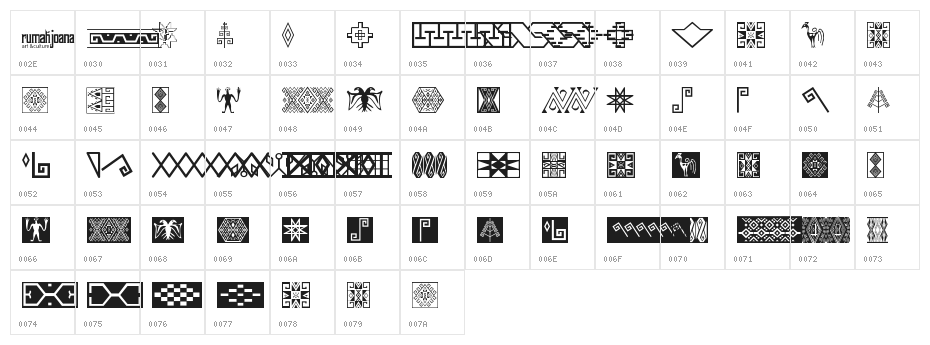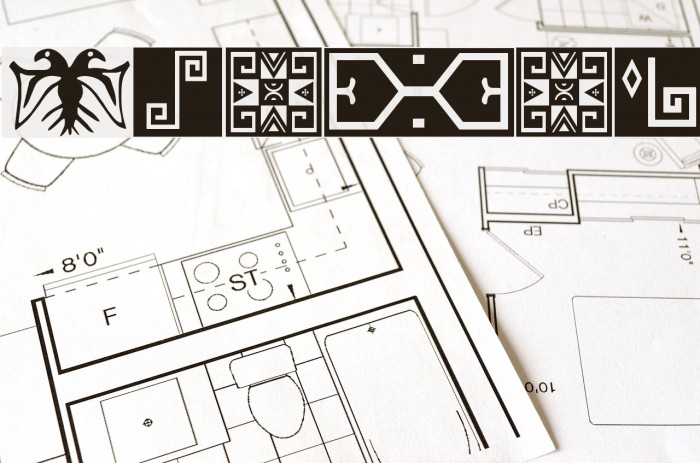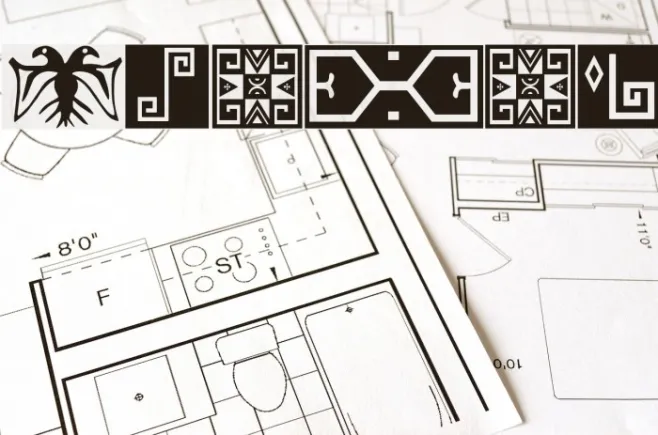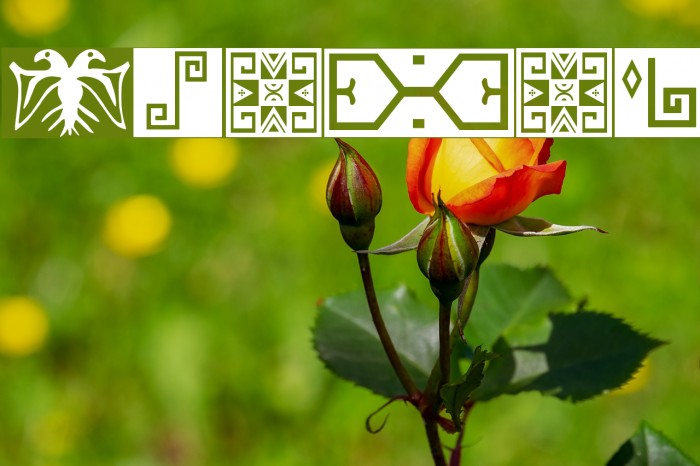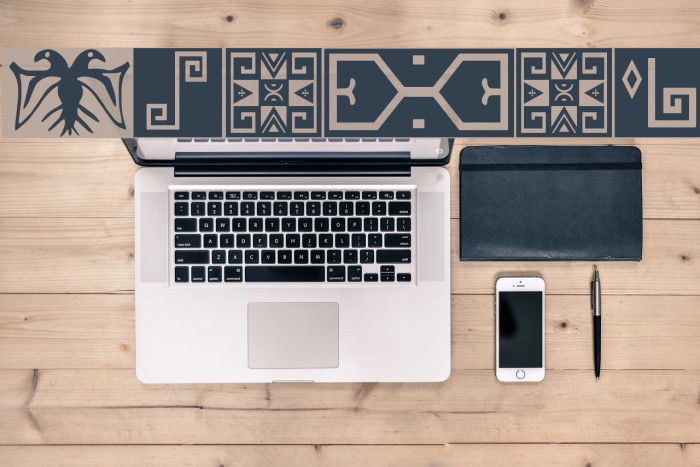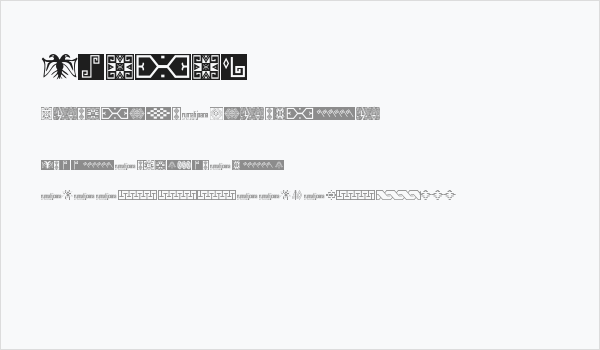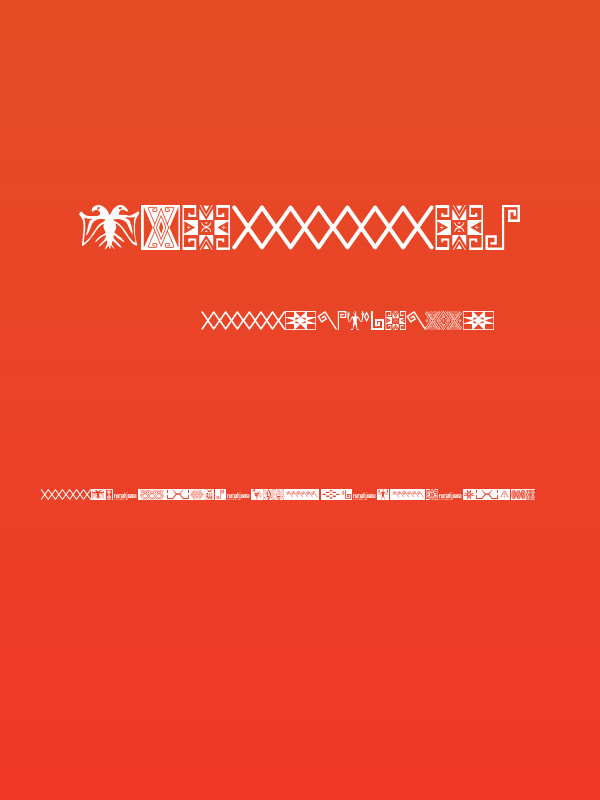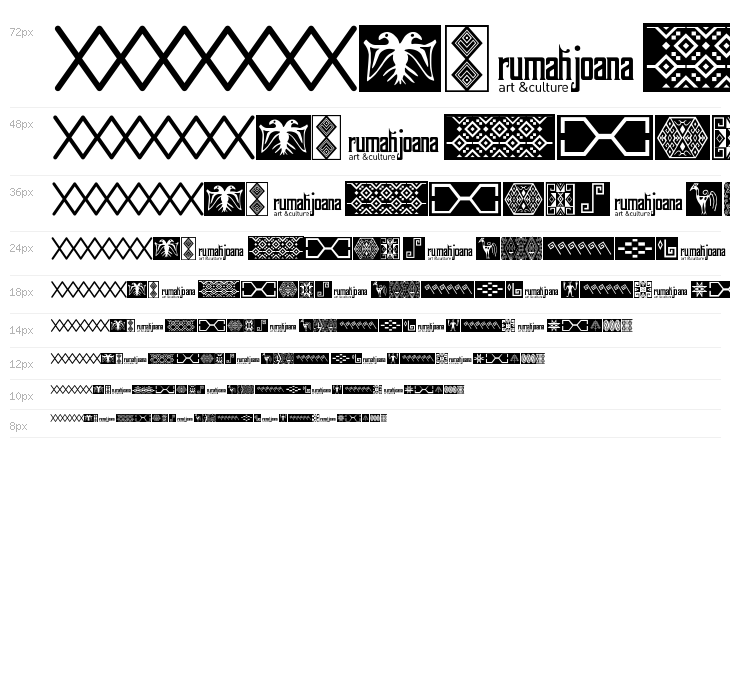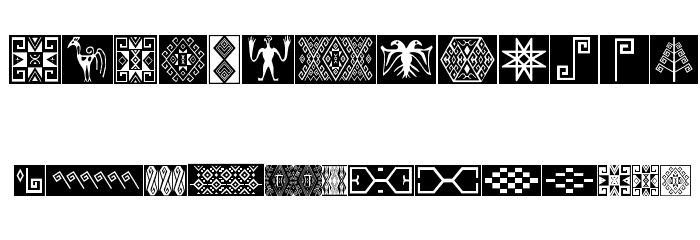
Ikatan Font
Ikatan Description
A highly decorative and ornamental font composed of geometric patterns, tribal motifs, and symbolic illustrations, resembling traditional or indigenous artwork. The characters are not standard alphanumeric forms but rather intricate icons and borders, each enclosed in a square or rectangular frame, with some featuring animal shapes and abstract designs.
| Overall Style | Decorative, Ethnic, Tribal |
| Use Case | Borders, Decorative elements, Themed headlines, Posters |
| Proposed Projects | Borders, posters, cultural event materials, packaging, invitations, artistic branding. |